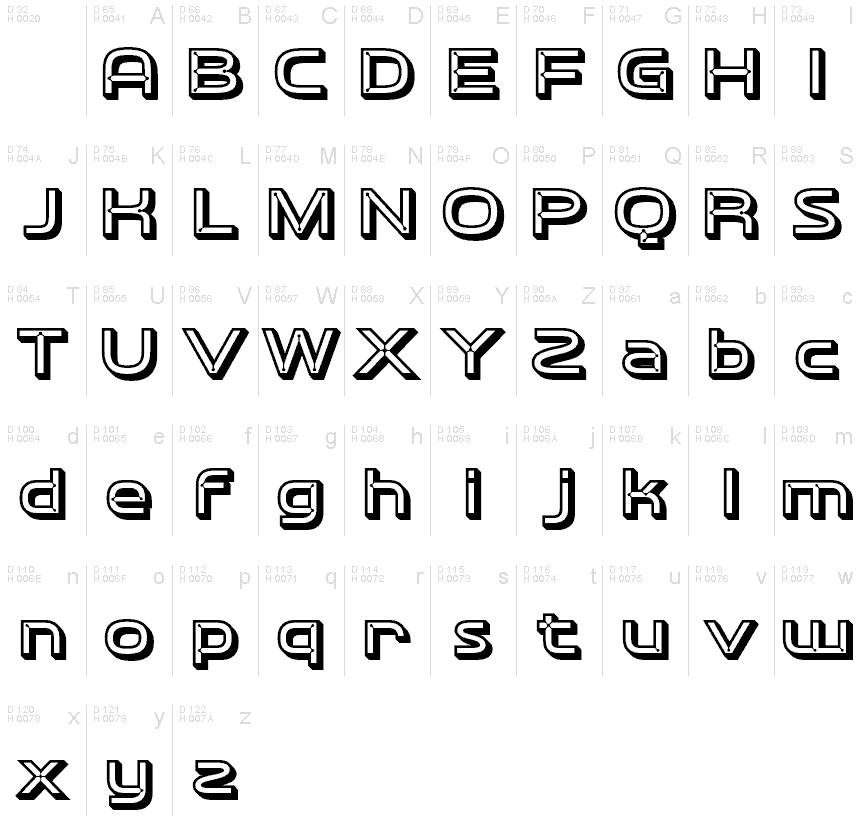
CS Bosley 3D Demo rudeRight
CS Bosley 3D rudeRight font by Craft Supply Co is a free display font imagined in a futuristic, geometric, and retro style. Each glyph is aesthetically built through the repetition of intricate modules applied to expanded sans serif letterforms. As a whole, the design hints at technological art vibes especially when used with the provided alternative characters.
Among others, this font will be perfect in futuristic and retro-future designs be it movies, series titles or all sorts of advertising materials made for those same purposes. Combine it in editorial work such magazines or corporate branding within companies producing electronics and similar gadgets. Use it on posters for musical concerts where relevant.